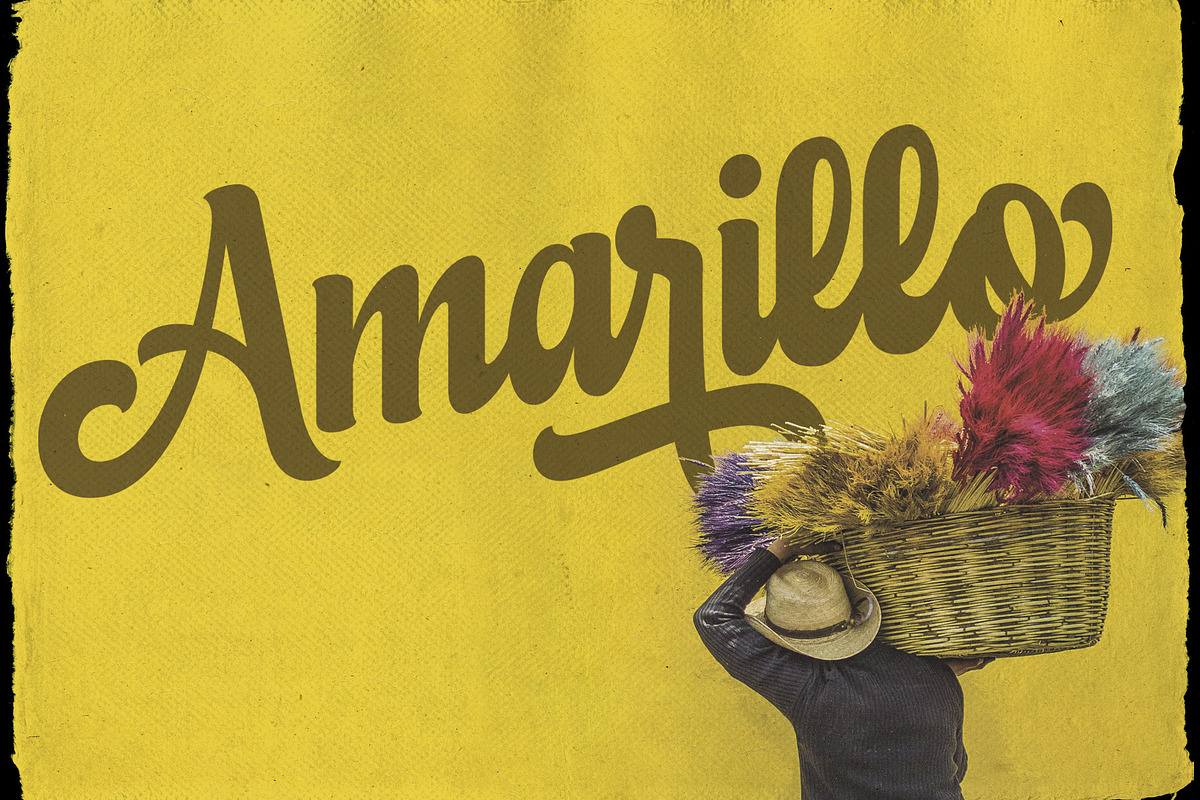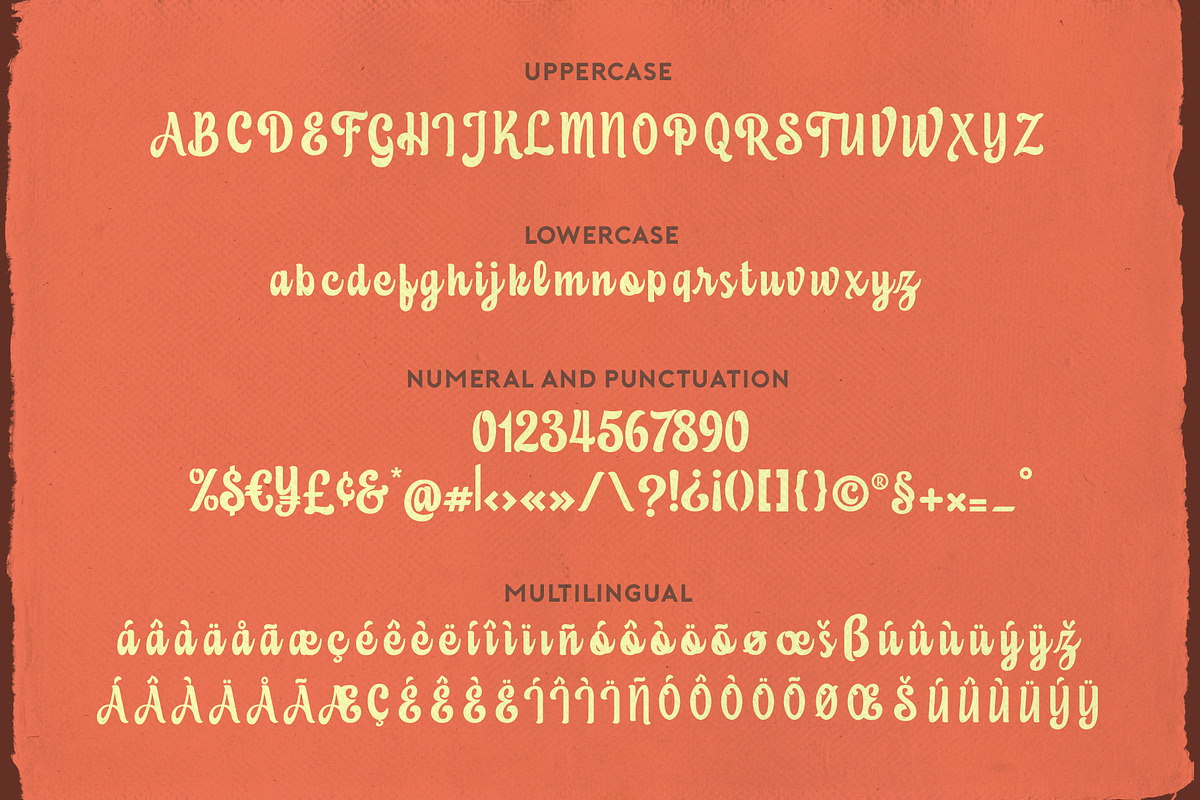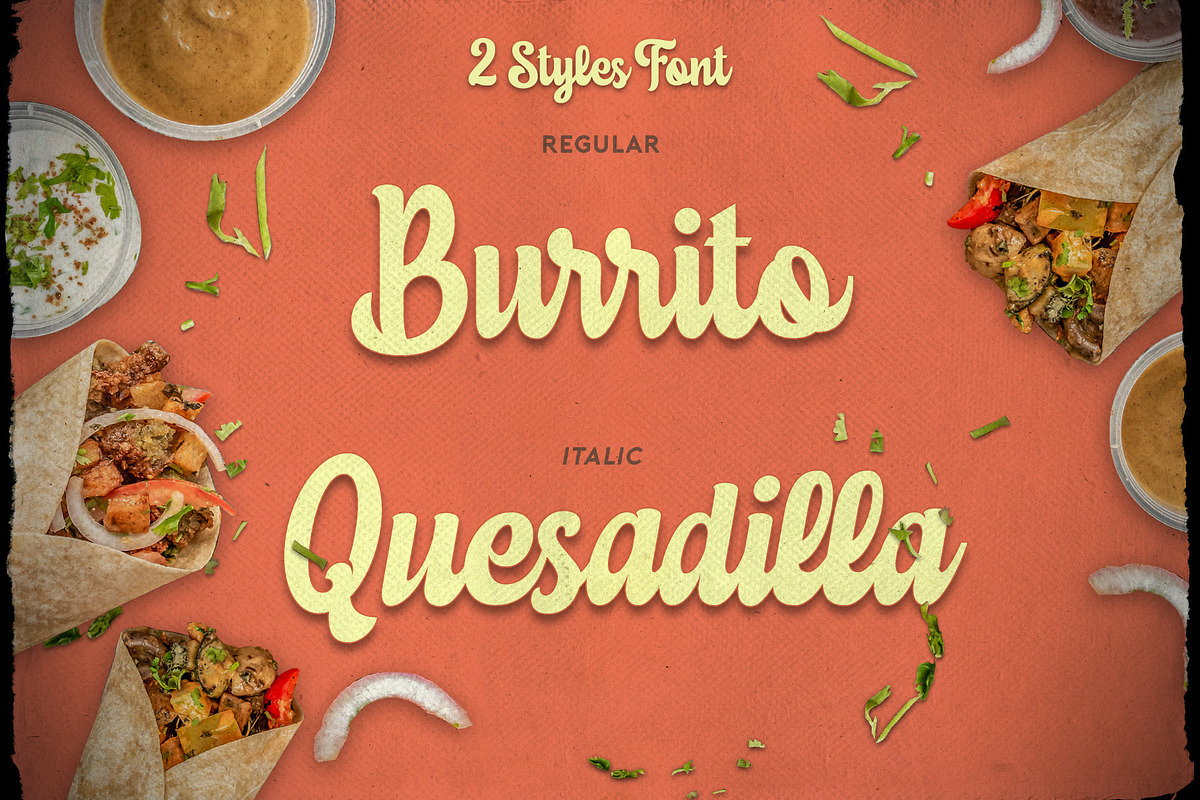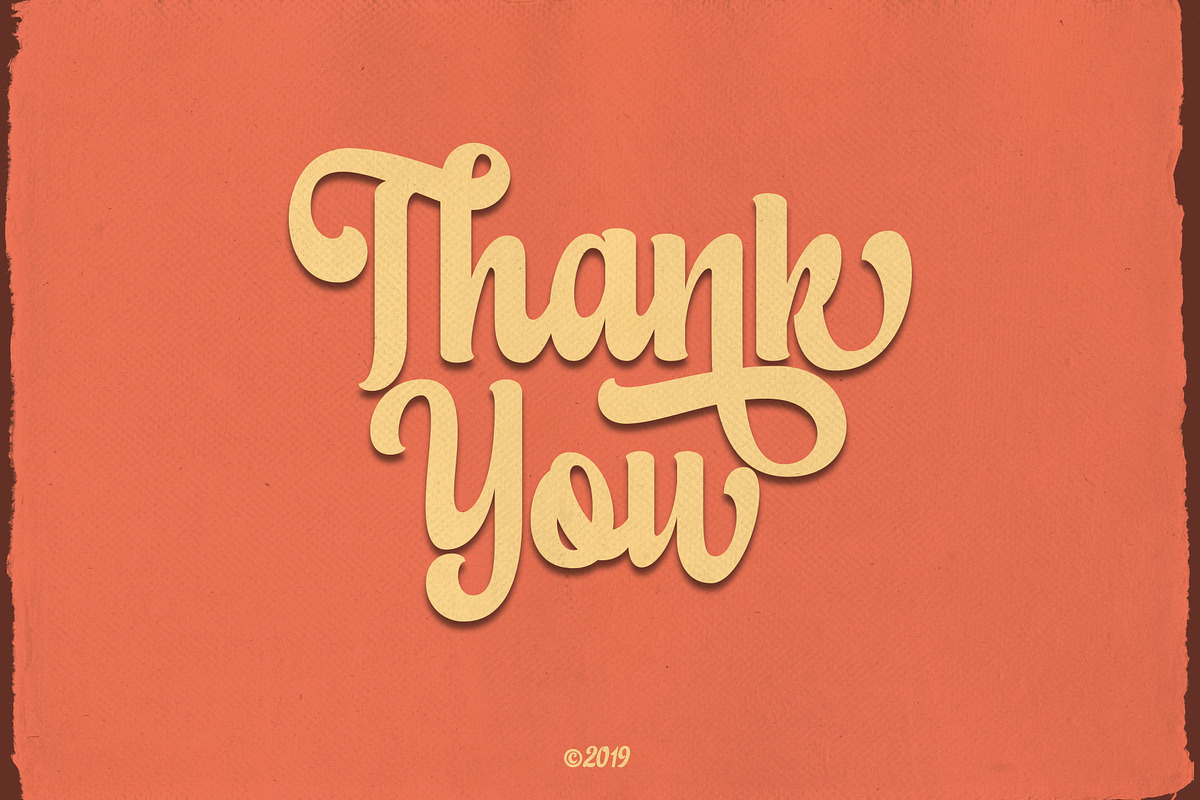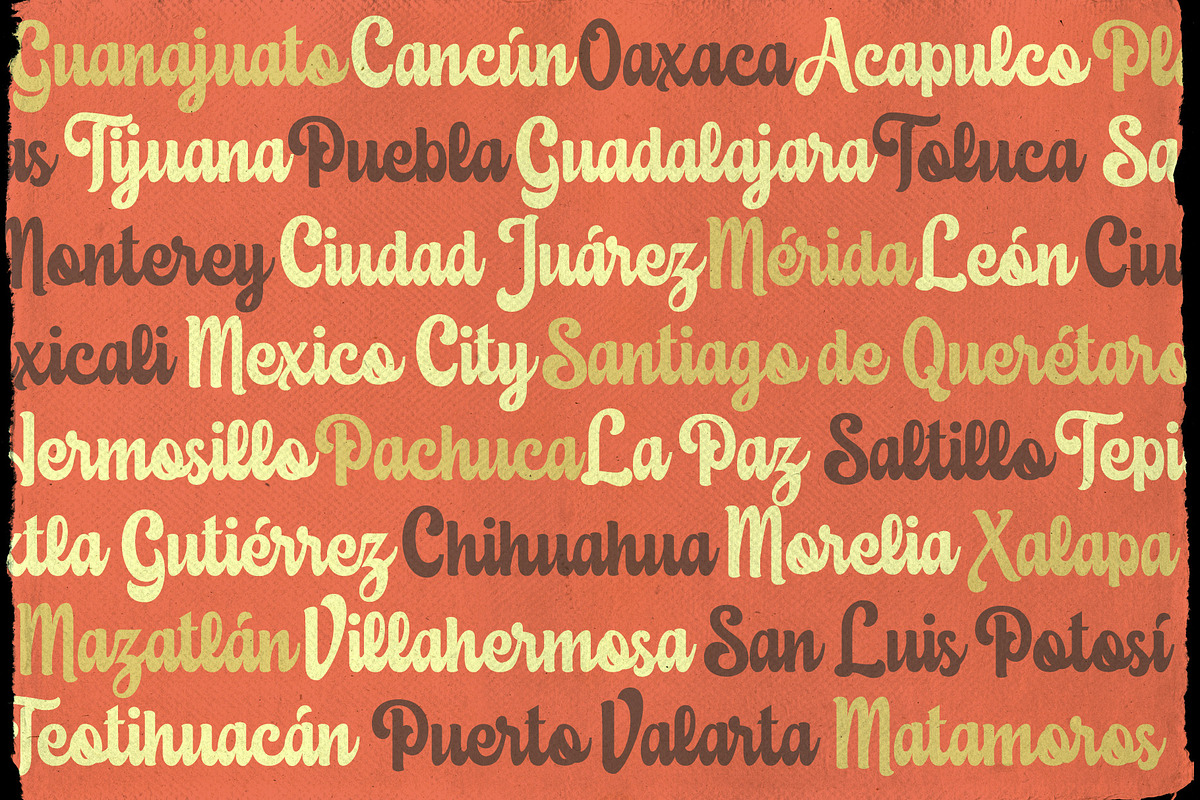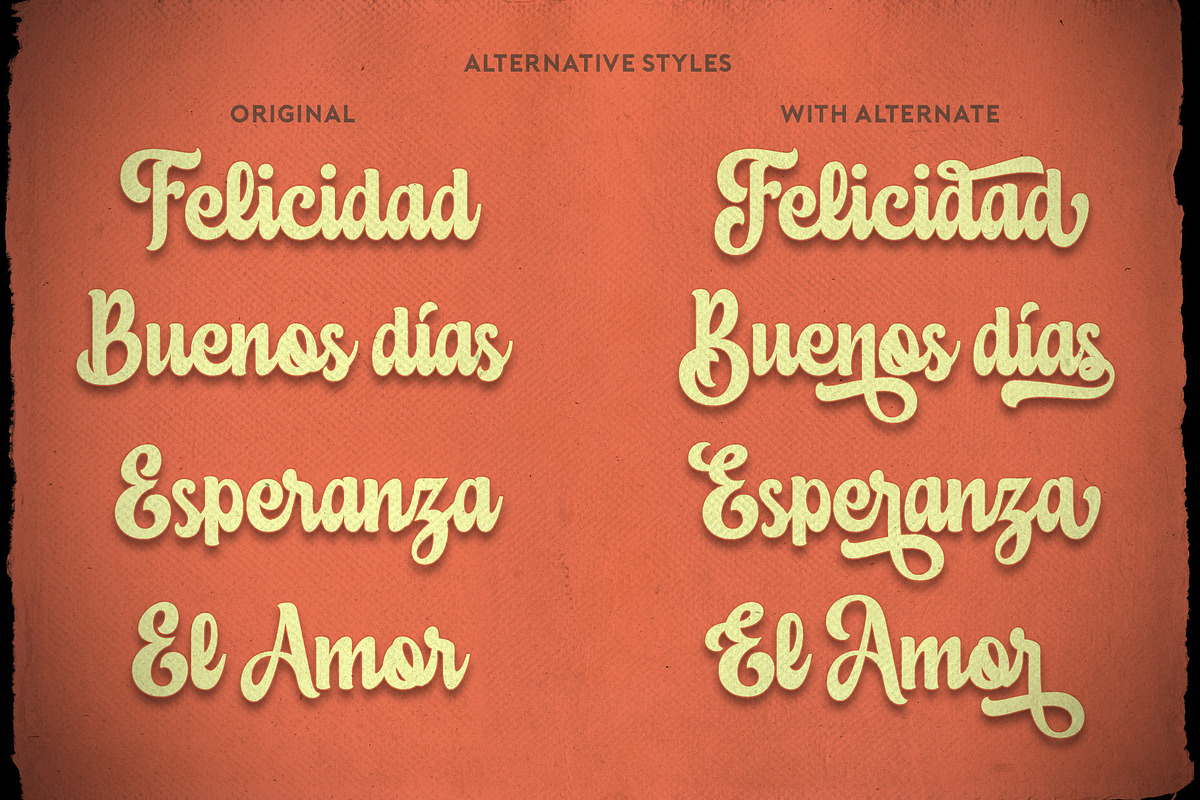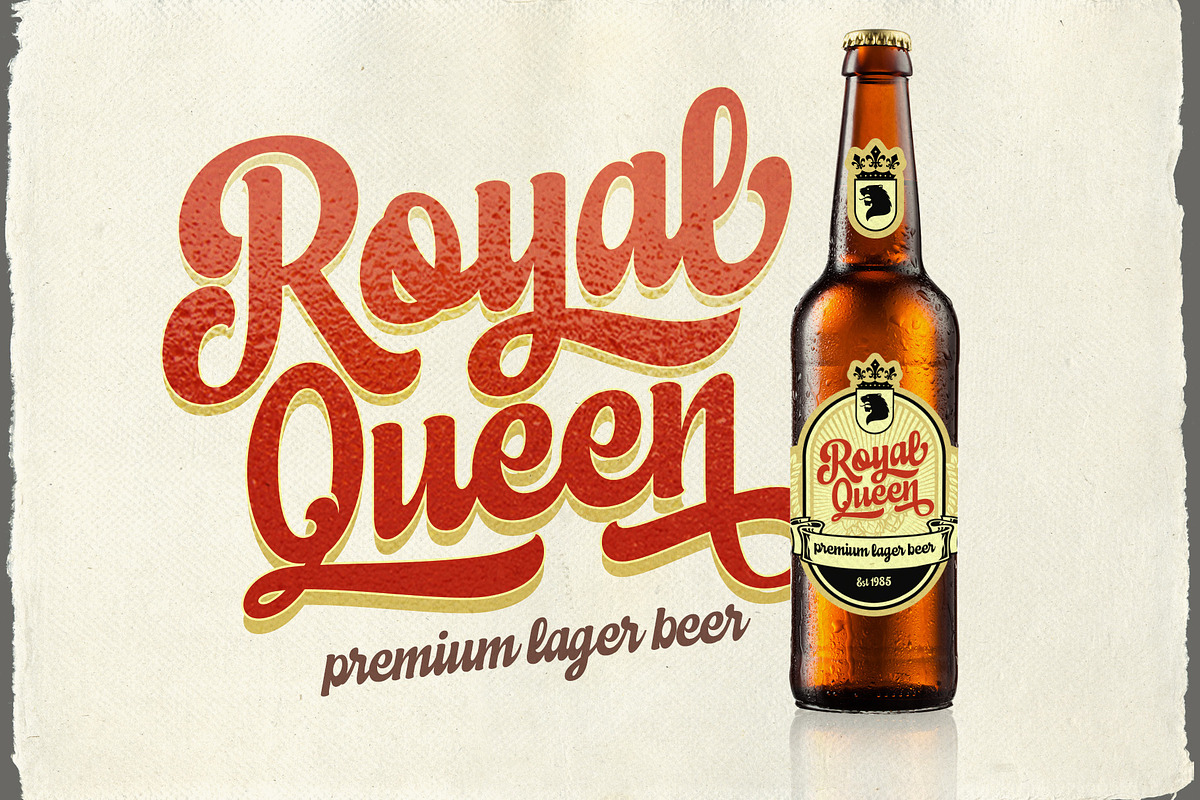
Eustachio script font
Eustachio Script font was inspired from bright and colorful vintage retro movies. It contains set of Regular and Italic, supporting Opentype features such as Alternative characters, Ligatures and Multilingual characters. Eustachio font works perfectly for your logo project, print, design title or even standalone inscription design.
Eustachio script font by bazziergraphik fits naturally into Branding, posters, packaging, typography.